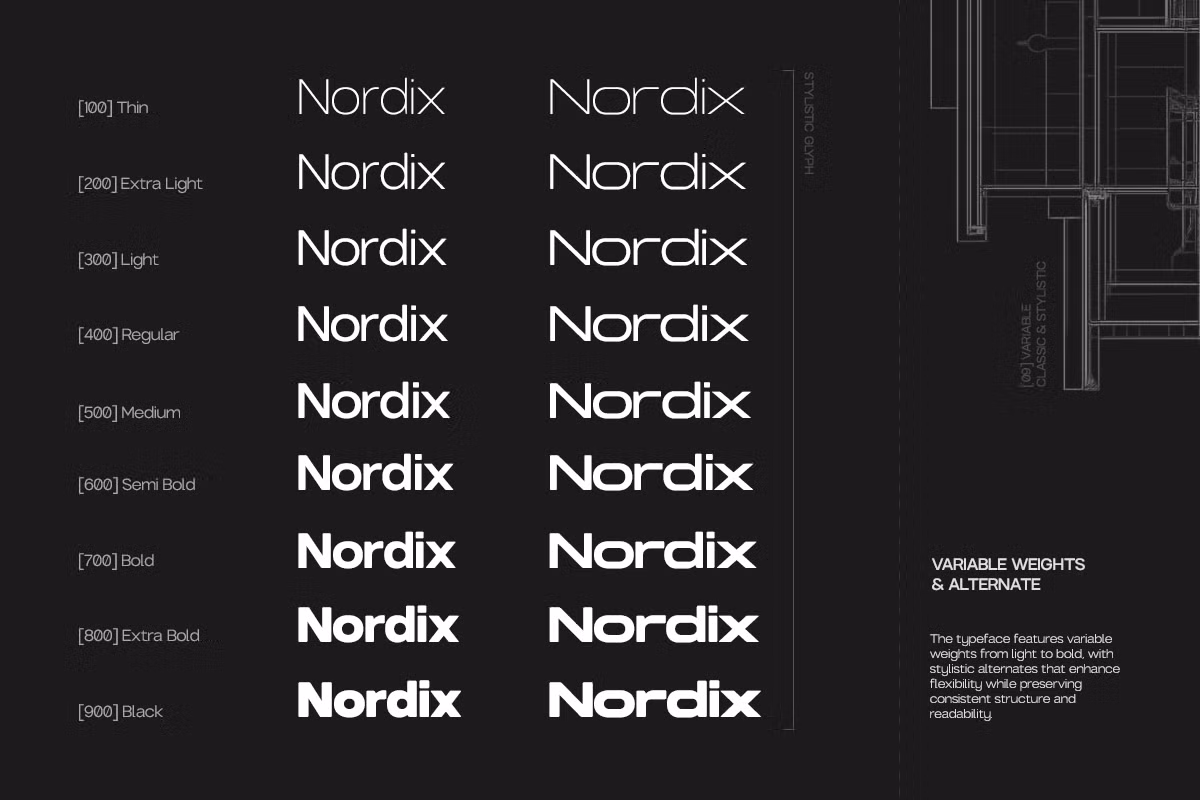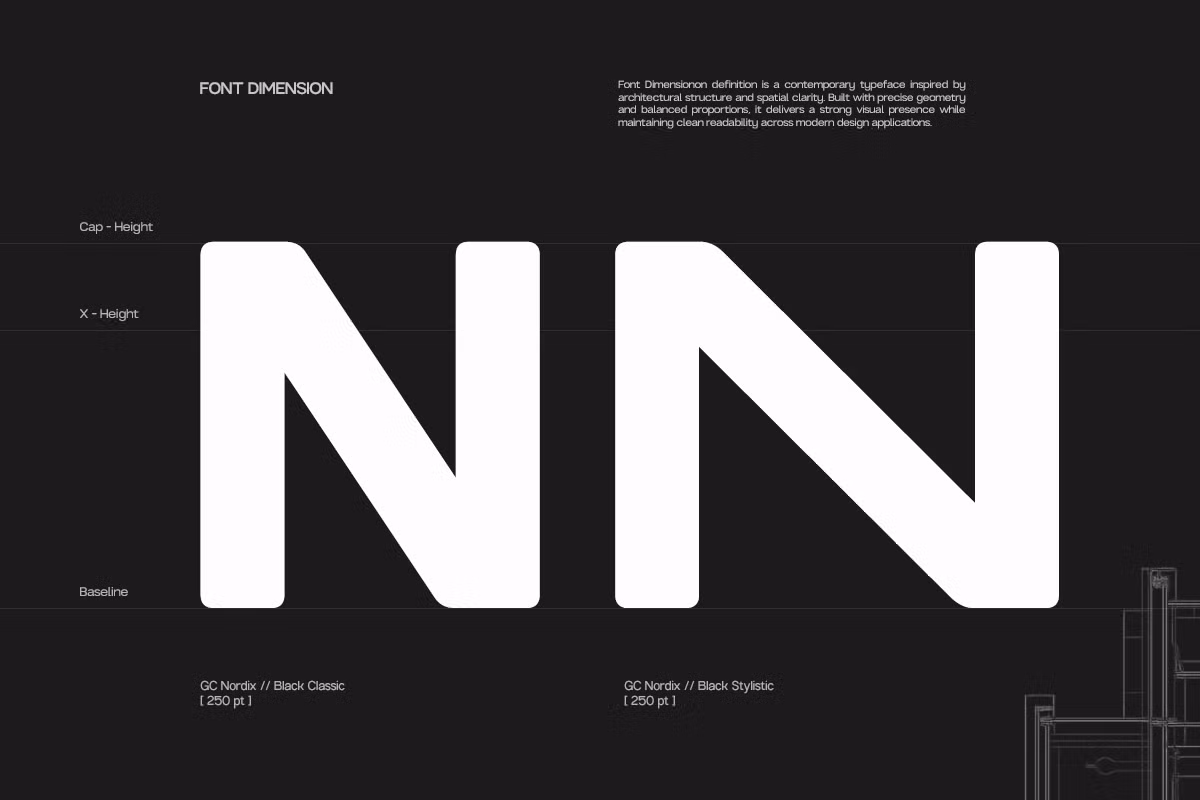
GC Nordix: Bold Geometric Typeface for Modern Design Projects
GC Nordix is a sans serif typeface. GC Nordix has the shapes and the modern proportions. I made GC Nordix to give clarity and confident structure. GC Nordix has the strong voice. That makes GC Nordix a good choice, for visual communication needs. GC Nordix has the forms, the edges and the balanced geometry. I have used GC Nordix on both print media and GC Nordix works. When I try GC Nordix I see that GC Nordix works on screen and, on paper.
Design Style of GC Nordix
When I look at GC Nordix I see a shape that catches the eye and works well. I like how GC Nordix mixes angles with curves. GC Nordix feels modern and friendly. The geometry of GC Nordix helps the letters stay easy to read. GC Nordix makes your messages clear. Gives them a look.
I find GC Nordix works well for designers who like looks and still need impact. The bold shape of GC Nordix lets GC Nordix stand out in a field. That makes GC Nordix a good pick, for headlines and branding. The clean lines and strong look of GC Nordix help GC Nordix fit tech projects and building designs, where clear and precise style matters.
Character Sets and Features
GC Nordix is flexible. I have tried GC Nordix and I like the way GC Nordix works. GC Nordix has a set of characters that work for, than 170 languages so your text can reach people, around the world. GC Nordix includes capital letters and small letters, numbers and punctuation. GC Nordix gives you all the parts you need to make designs.
One of the features of GC Nordix is the variable font capability. The variable font capability lets you adjust the weight of the letters. That means you can fine tune the look of your text. You can adapt the typography to fit layouts and platforms. I have found that changing the weight is quick and simple. If you need a weight, for body text GC Nordix can give you that. If you need a version, for headlines GC Nordix can give you that too. GC Nordix has you covered.
Use Cases for GC Nordix
GC Nordix is very versatile. The versatility of GC Nordix opens up a range of uses. Here are some key areas where GC Nordix works well:
- Headlines: I have tried GC Nordix for headlines. GC Nordix works well. GC Nordix has an geometric shape. That shape makes GC Nordix a good pick, for headlines that need to grab attention. GC Nordix has a presence that makes your messages seen and remembered.
- Branding Systems: In branding the consistency is key. GC Nordix gives a foundation. The typographic foundation works across branding items from logos, to business cards. The typographic foundation builds a unified identity.
- Layouts: I have used GC Nordix for the magazines the newsletters and the digital publications. GC Nordix improves the readability of the content. GC Nordix also keeps the look and feel.
- Tech-Driven Designs: I use Tech-Driven Designs for projects, in the tech industry where clarity and precision matter. GC Nordix gives a modern look that fits tech themes.
- Minimalist Posters: Minimalist Posters are simple and strong. I have seen many Minimalist Posters work well. If you are looking to make a Minimalist Poster, GC Nordix will help you show the message clearly without decoration.
I like to pair fonts with GC Nordix by matching the style of GC Nordix. I make sure not to overload the design. Here are some pairing suggestions that work well:
- Serif Fonts: I pair GC Nordix with a serif font such, as Merriweather or Playfair Display. GC Nordix with a serif font creates a contrast between modern style and traditional style. The contrast makes the design feel more refined.
- Humanist Fonts: I use Humanist Fonts such, as Arial or Open Sans with GC Nordix. Humanist Fonts give an approachable feel that balances the boldness of Nordix.
- Monospaced Fonts: Pair GC Nordix, with the font such as Roboto Mono, for a tech design. GC Nordix and Roboto Mono make a digital look. GC Nordix works with Roboto Mono.
When I choose GC Nordix I get a typeface that improves my design projects and gives me the flexibility I need for uses. GC Nordix works on platforms. GC Nordix keeps my typography the same. Makes an impression no matter the medium.
In the end GC Nordix is a shape based typeface that adds shape, clear structure and easy change, to the design projects. GC Nordix has a shape base, a set of characters and many weight options so GC Nordix is a useful tool for any designer who wants to make a clear impact. When you are making headlines building brand systems or designing editorial layouts GC Nordix is a choice for getting a strong text style. Add shape, easy change and a strong look to the design, with GC Nordix. I have used GC Nordix and GC Nordix feels solid in my work.